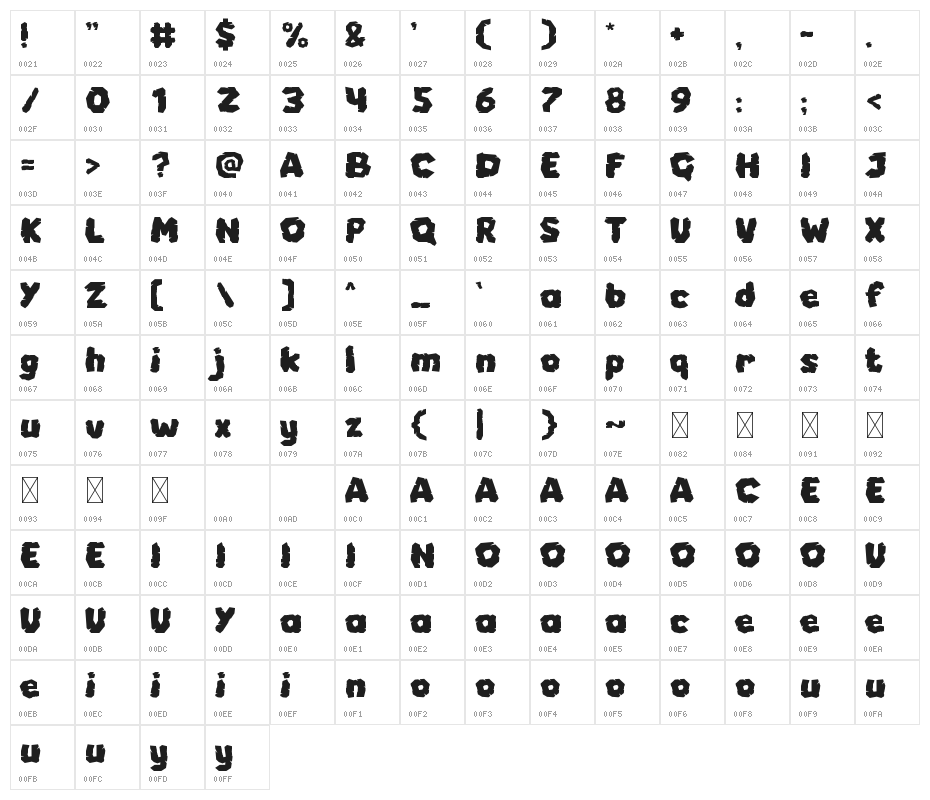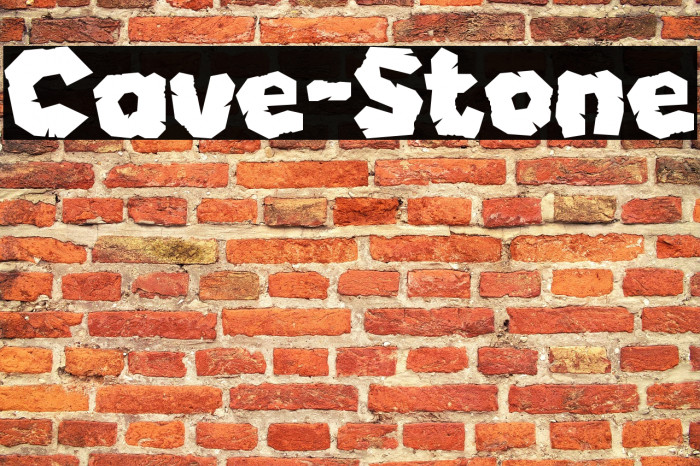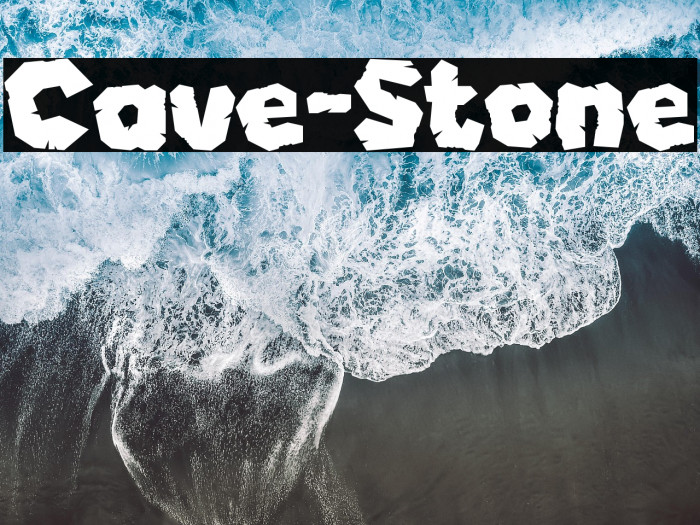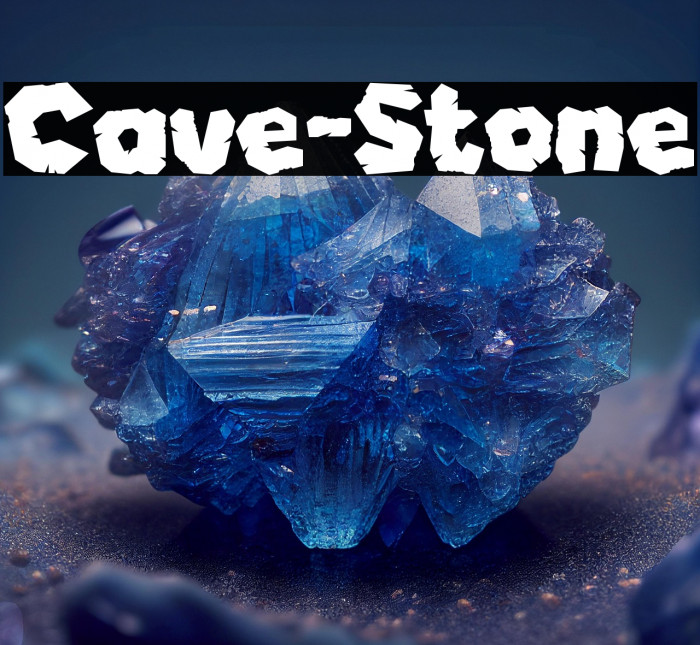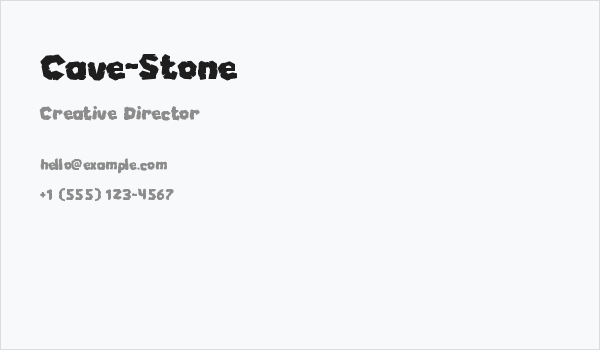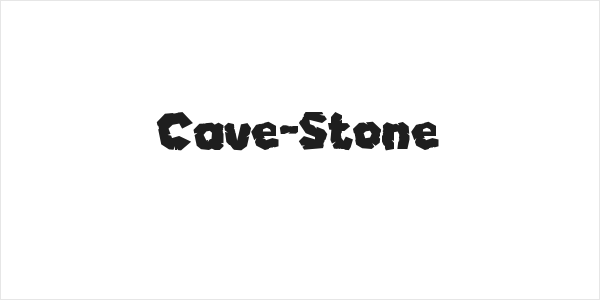
Cave-Stone Font
| Stile generale | Primitive, Natural, Rugged |
| Caso d'uso | Headlines, Logos, Themed Posters |
| Progetti proposti | Ideal for prehistoric-themed designs, adventure branding, or any project needing a raw, natural aesthetic. |